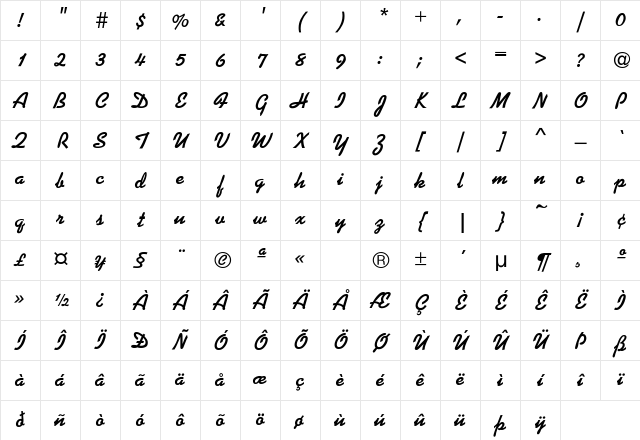
Kaplan-Bold Regular
Design Context for Kaplan-Bold
Kaplan-Bold is a composed and adaptable typeface that performs quietly and consistently across a wide range of design contexts. Its bold stroke weight gives it real presence on the page.